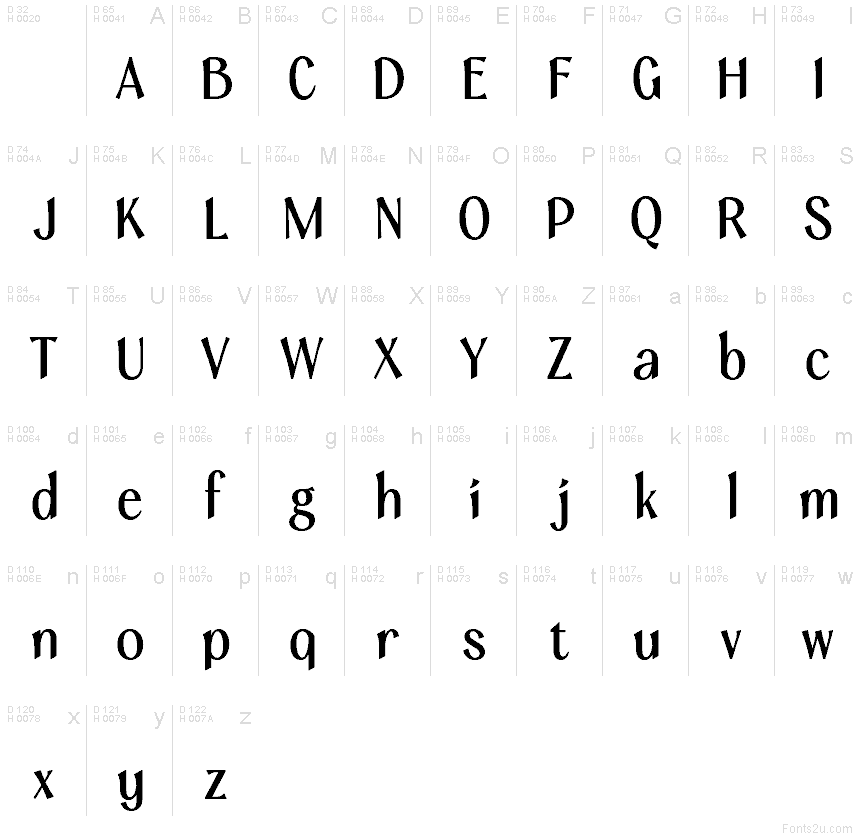
CS Smash Regular Demo
CS Smash font from Craft Supply Co. embodies elegance with refined serifs, offering a classic aesthetic with sophisticated vintage influences. This beautiful condensed font presents an effortlessly refined appearance across all its letters.